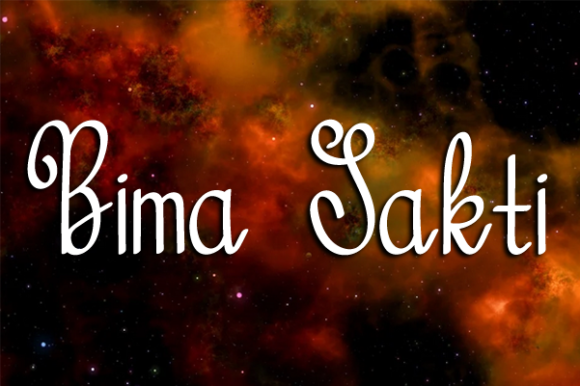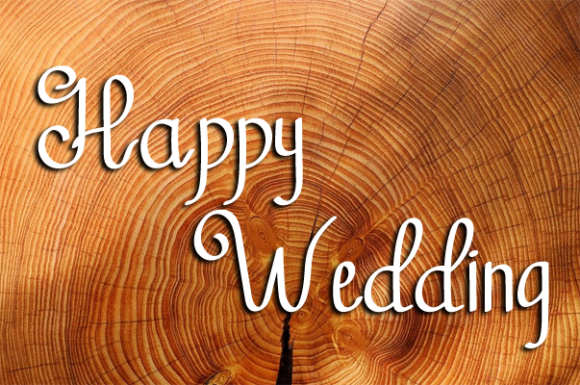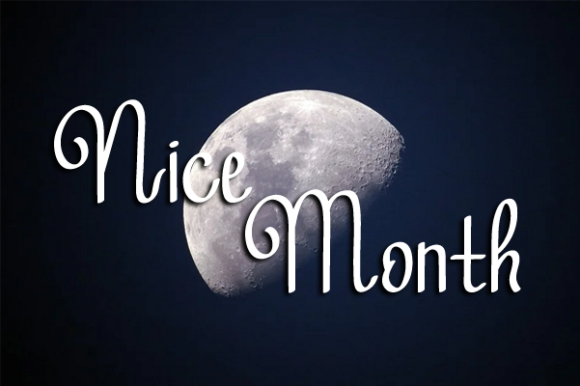
Sumpilan Font
About Sumpilan Font
Sumpilan is a stylish and whimsical script font. It looks stunning on wedding invitations, thank you cards, quotes, greeting cards, logos, business cards and every other design which needs a handwritten touch.